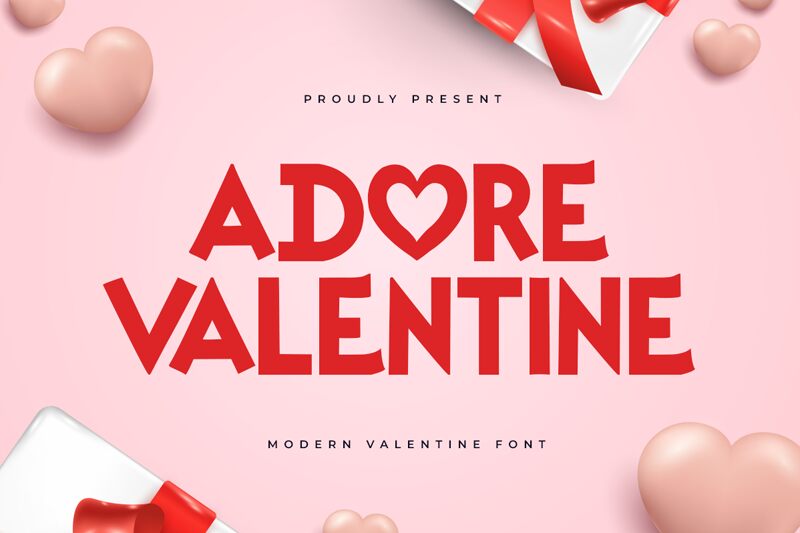
Adore Valentine font by Kong Font is a clear, decorative font dedicated and inspired by the holiday of love Valentine. This modern typeface displays lots of contemporary and expressive elements that make the main width adjustable. Its energetic appearance makes it perfect for engaging and romantic texts with a touch of special thematic energy. Its wooden style raises the concept design to a catchy level that always manages to catch the viewer’s sight.
This engaging font is great for various commercial and personal special projects, particularly around holidays. Those can include greeting cards, invitations, product labels, titles, intros, wallpaper, packaging, pamphlets, banners, and posters. As a vector, this typeface can be integrated into complex graphic design projects with software like Illustrator and Photoshop.